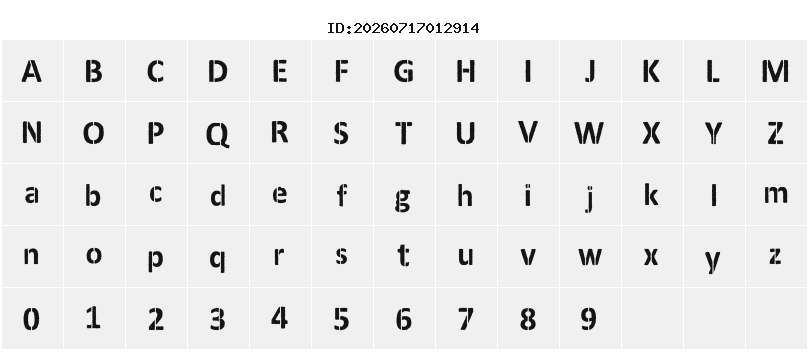
• Font Name: ANDERSON
About ANDERSON.ttf
ANDERSON.ttf is a modern, elegant sans-serif font designed for ultimate readability and visual harmony. Perfect for branding, headlines, web design, and print materials.